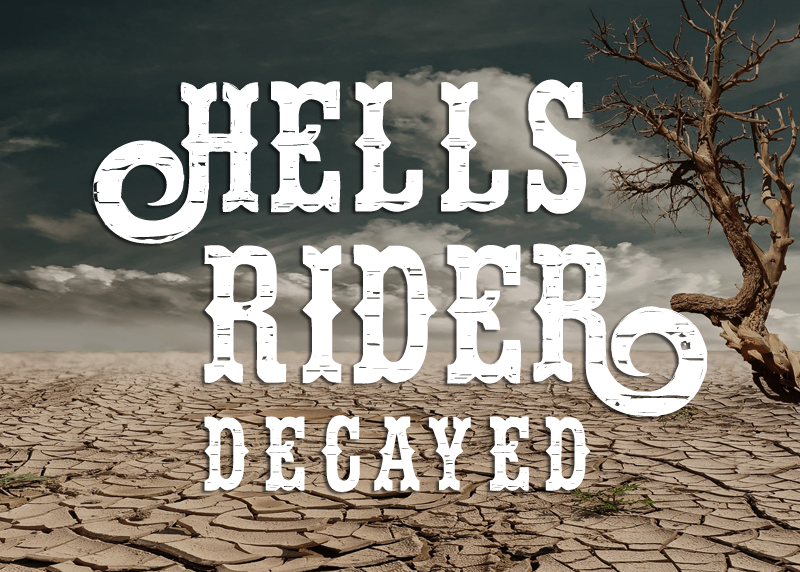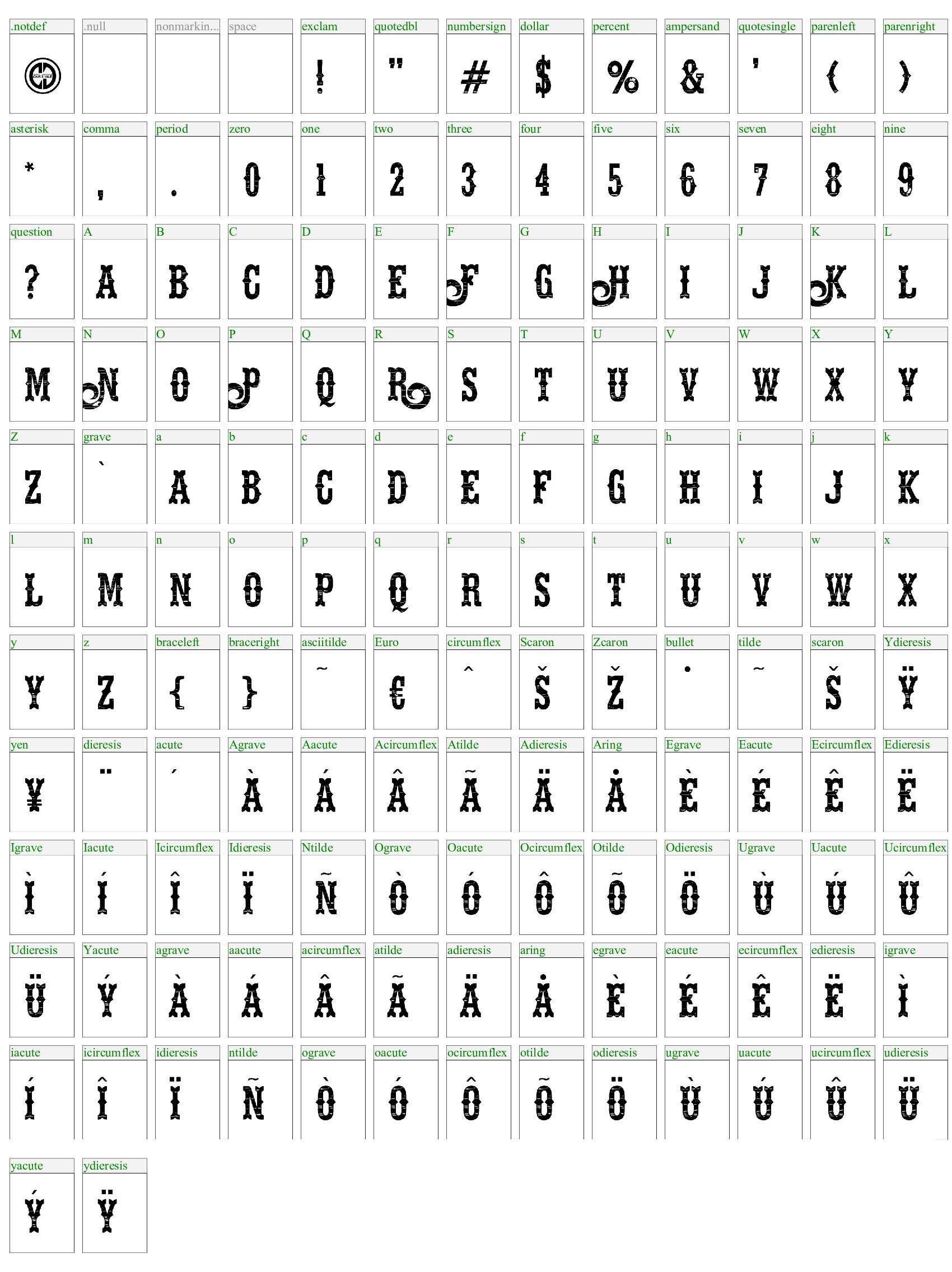
Styling:
Uppercase: Yes, with dropped accents
Lowercase: Same as uppercase, no accents
Numbers: Yes
Symbols: Yes, limited
Accents: Yes
Theme: Western, Eroded
Font includes these western borders and rulers to use with your font: